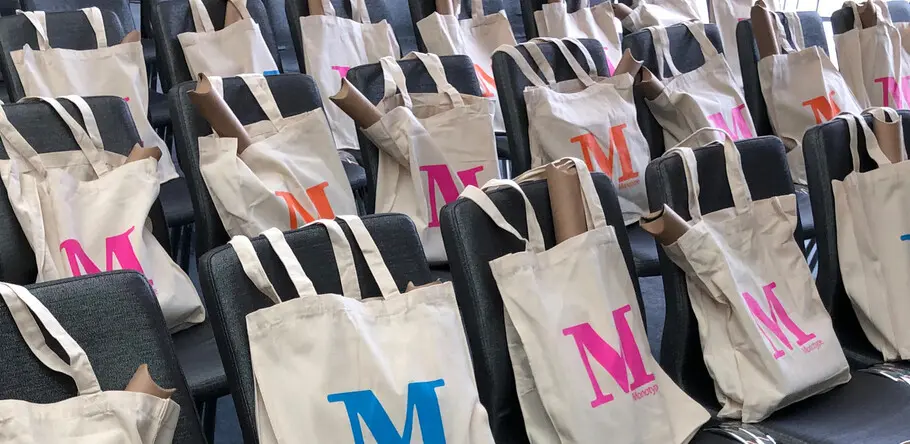
Consistency is the future: A recap of Brand Talks San Francisco.
At Monotype, we have found that a brand’s type strategy can be a good place to start the evolution.
Consistency is the future: A recap of Brand Talks San Francisco
According to Salesforce, 75% of consumers expect a consistent experience wherever they engage with brands, across both online and offline channels. And yet many brands are failing to deliver on that expectation.
In a recent Monotype survey of brand leaders, while “consistency” was the most highly prioritized element in a brand identity strategy, only 44% of those surveyed report maintaining consistent typography, colors, and imagery within all of their customer touchpoints.
This broad disconnect represents both an enormous challenge and an opportunity for brands, and as such was the primary theme at last week’s Brand Talks event in San Francisco. The event brought together leaders in design and branding for an afternoon of networking and presentations from brands that have tackled the issue of consistency head-on.
Brett Zucker, Monotype’s Chief Marketing Officer, kicked off the day by outlining four obstacles that contribute to these inconsistencies:
• Quantity of touch points: Between social channels, mobile applications, digital ads, and traditional media, there is an ever-growing quantity of relevant touch points where consumers are interacting with brands. As the ecosystem expands, it becomes more challenging to maintain brand consistency at scale.
• Complicated technological obstacles: 25% of the brands we surveyed reported that struggling to integrate technology has eroded their ability to deliver consistent experiences.
• The change never stops: Brands need to go where their customers are, and with shoppable media, as well as emerging environments like AR/VR and voice, the pace of change isn’t slowing down.
• Rebranding is increasingly impractical: Constant change means that brands can no longer re-imagine themselves every few years. Doing so would require far too much investment in resources. Instead, they need to take a new approach.
Zucker highlighted the importance of taking a more agile approach to brand-building, one that involves co-creation with customers and implements design for today with an eye on tomorrow.
Between social channels, mobile applications, digital ads, and traditional media, there is an ever-growing quantity of relevant touch points where consumers are interacting with brands.
Still, this “future-proofing” can seem like a daunting task to design teams. At Monotype, we have found that a brand’s type strategy can be a good place to start the evolution.
Helvetica Now, a recent re-imagination of the world’s most iconic typeface, is an example of how design can help take an existing identity and prepare it for an ever-changing future. Charles Nix, Type Director at Monotype and one of the designers who worked on that project, shared the process behind the redesign.
Charles Nix at Brand Talks San Francisco 2019
For Eventbrite, type empowers consistency + independence
Eventbrite is a platform that helps creators produce live events, and makes it easy for individuals to discover and attend them. Since its inception, the stated mission of the organization has been to “bring the world together through live experiences.”
While this is a straightforward mission, it encompasses a wide variety of experiences like music, art, theater, business networking, and more. The brand needed to evolve in order to maintain a clear identity while also supporting the needs of each category it was being used to promote.
At Brand Talks, Tom Censani, Director of Product Design at Eventbrite, shared details about the company’s rebrand, including four characteristics that drove the team’s decision-making:
• Adventurous: “Infectiously bold in the pursuit of brilliance.”
• Purposeful: “Lives, works, and plays with intention and sincerity.”
• Original: “Has a finger on the pulse of culture and a fresh perspective.”
• Welcoming: “Easy to love and a delight to spend time with.”
These characteristics were top of mind when considering a new brand font. The team worked with Monotype to analyze options that would align with the brand’s personality while also working across various systems and technologies. Ultimately, Neue Plak was selected.
Of course, for type nerds like us, this part of the process is particularly interesting. But it also provided an opportunity to connect the other elements of Eventbrite’s complex brand. Neue Plak offers a range of weights and widths, which provided the freedom to adjust the mood and tone to match the type of event being offered, without sacrificing broader consistency.
“A typeface needs to represent who you are,” Censani told attendees. Neue Plak is an extension of the Eventbrite brand, and by playing with other elements like color, the team is able to maintain a unified identity while adapting for unique event categories.
Eventbrite and Thumbtack are both fantastic examples of how a brand can shift its identity to grow alongside its customers’ needs without sacrificing consistency. The future will continue to change, as will the expectations of consumers and the technologies they use every day. For brands, developing an identity system that can evolve with them will be the key to success.